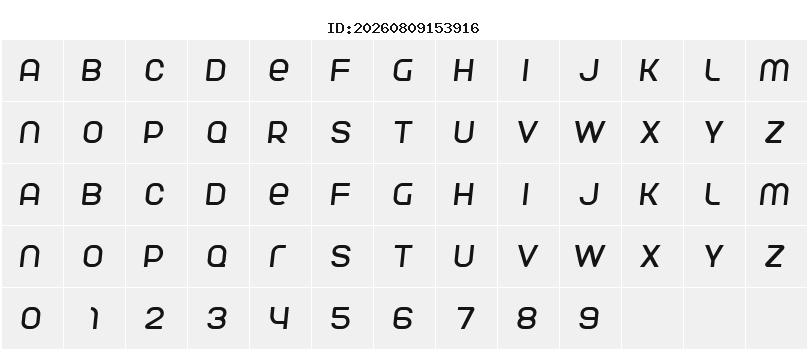
• Font Name: Parvoflavin
• Font Style: Normal Skew
• Font ID: Parvoflavin Normal Skew
• Full Font Name: Parvoflavin Normal Skew
About Parvoflavin.ttf
Parvoflavin.ttf is a modern, elegant sans-serif font designed for ultimate readability and visual harmony. Perfect for branding, headlines, web design, and print materials.